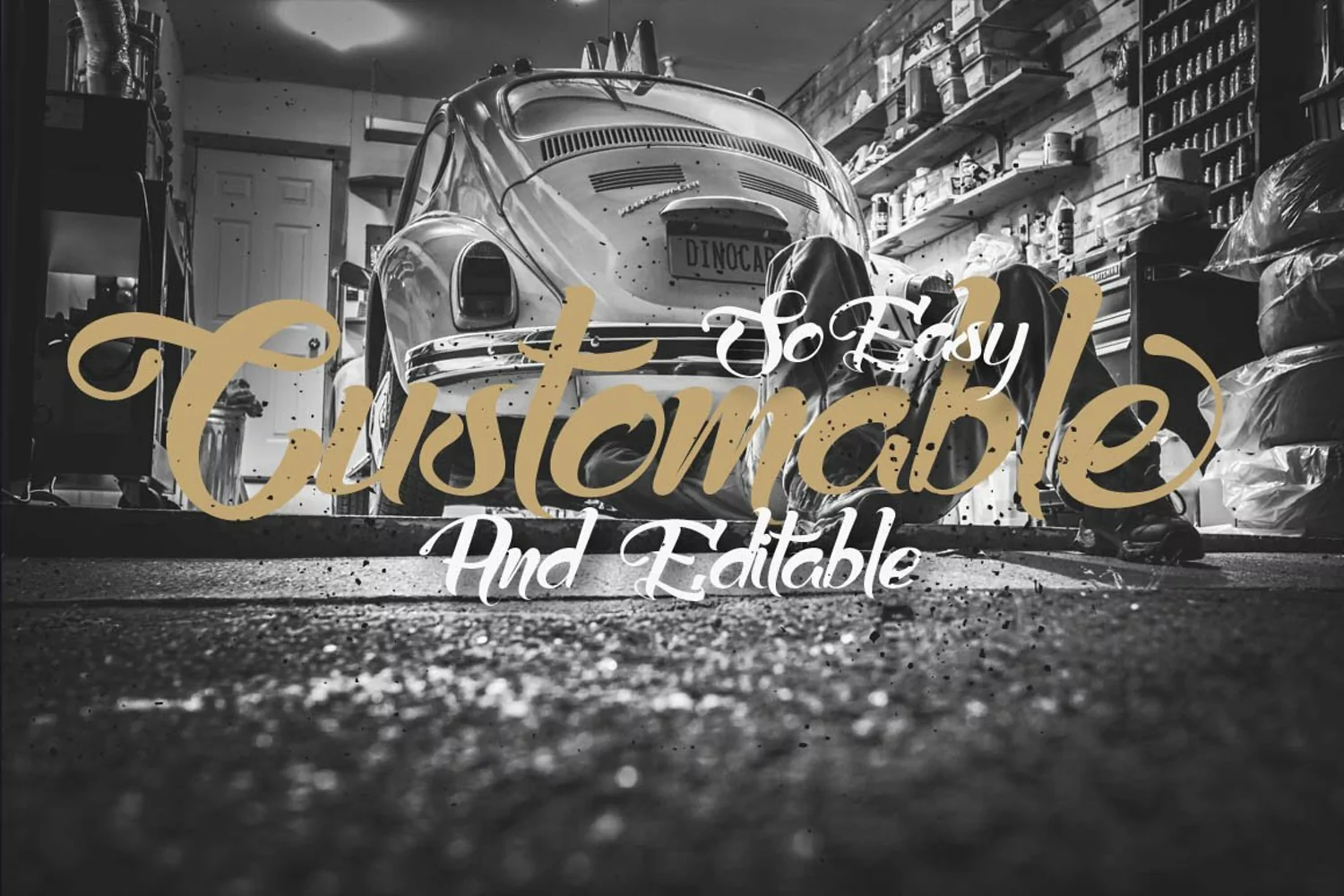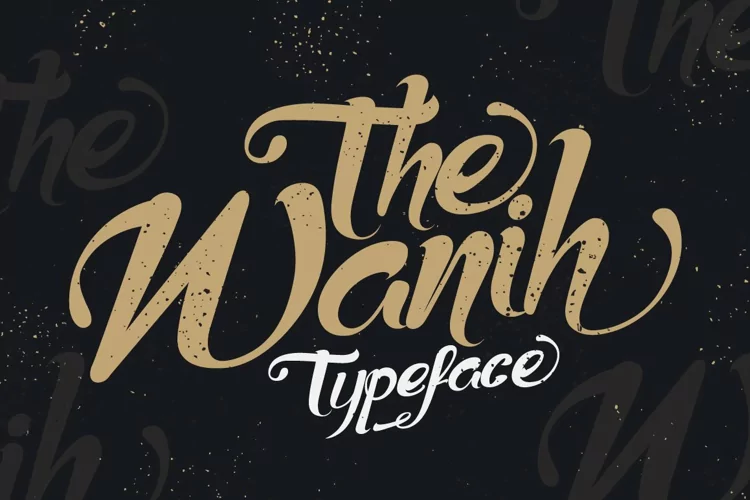
Wanih is a handpainted typeface with a customible style it’s perfect for creating tattoo, a headline, logotype, and t-shirt/ apparel design. The characteristic of Wanih is urban style with the unique handmade touch characteristic. File Included: Wanih.otf Wanih.ttf Features : Uppercase Lowercase Numerals & Punctuations Accents (Multilingual characters) There are more than 114 glyphs in the font including Stylistic sets, Ligatures, Contextual Alternates etc. OpenType features with Stylistic Alternates, Contextual Alternate in some characters that allows you to mix and match pairs of letters to fit your design. To access the alternate glyphs, you need a program that supports OpenType features such as Adobe Illustrator CS and Adobe Indesign. Follow me on Instagram to get the latest updates on new typefaces and chances to win new stuff : http://instagram.com/WNPRH Thanks